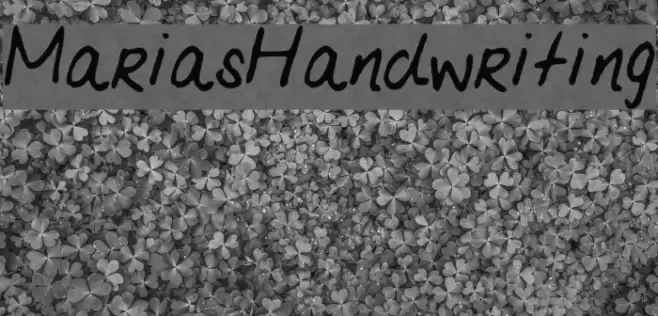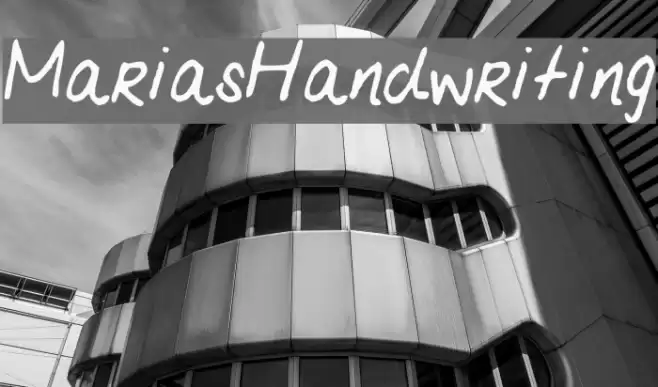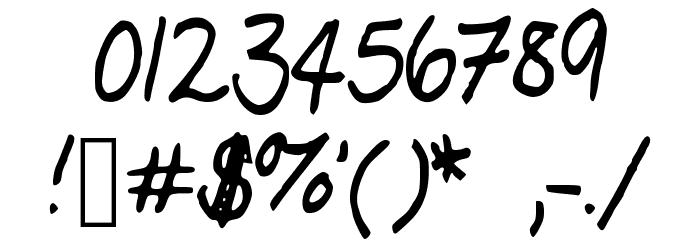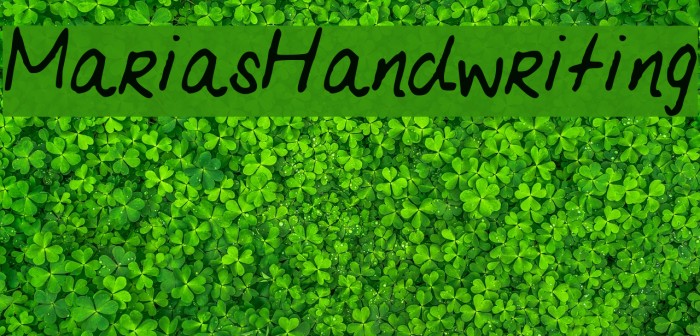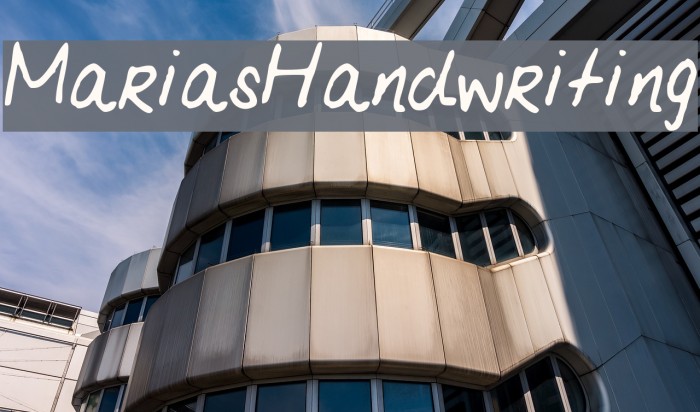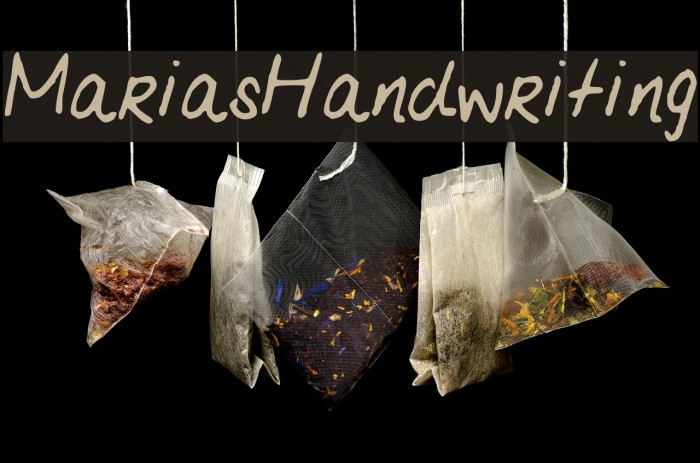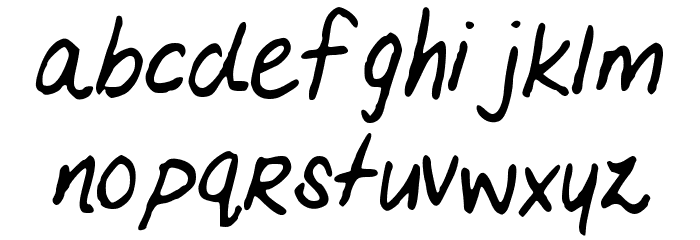
MariasHandwriting Font
MariasHandwriting Description
This font exudes a casual and personal touch, reminiscent of authentic handwriting. The characters are fluid and slightly slanted, giving a sense of movement and informality. The strokes vary in thickness, adding to the handwritten feel, while maintaining legibility. The uppercase letters are bold and prominent, while the lowercase letters are more relaxed and flowing. Numbers and special characters are consistent with the overall style, ensuring a cohesive look across all text elements.
A casual, handwritten-style font with fluid, slightly slanted characters from Handwritten fonts.
- Proposed Projects: Ideal for personal notes, invitations, greeting cards, and any project requiring a personal, informal touch.
- Overall Style: Casual, Personal
- Use Case: Invitations, Greeting cards, Personal notes